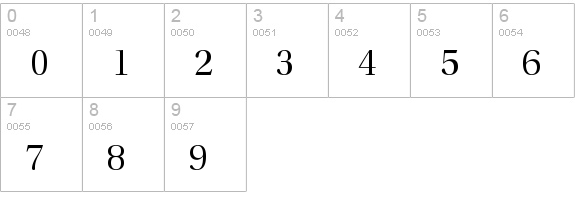
Utopia Std Display font is a stunningly elegant typeface that exudes sophistication and grace. Its timeless design is perfect for adding a touch of class to any project, whether it be a logo, branding, or editorial design. With its clean lines and balanced proportions, Utopia Std Display font captures attention effortlessly, making it a truly versatile choice for both print and digital media. The clarity of its letterforms ensures legibility, even at smaller sizes, making it ideal for body text as well. Utopia Std Display font embraces the concept of freedom, allowing your creativity to soar unhindered. Its wide range of weights and styles provides endless possibilities, whether you're aiming for a bold statement or a delicate touch. This font truly empowers designers to bring their visions to life. One of the best things about Utopia Std Display font is that it is freely available to download at FontsMarket.com. This means that you can enjoy the beauty and versatility of this font without any financial constraints. So go ahead and explore the limitless potential of Utopia Std Display font today!